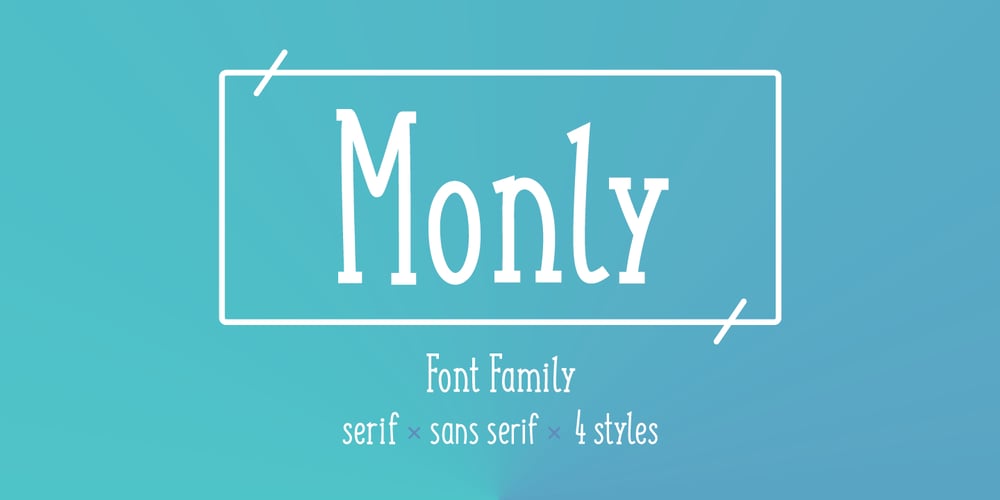
Monly
Monly font
Monly Font Family was designed by Gatis Vilaks and published by WildOnes. Monly contains 4 styles and family package options. The main idea behind creating Monly typeface was to combine playfulness with a strong letter construction backbone, so all the letters would stand tall and firm, but not to lose the playfulness. Like people, who grow up but try to save their inner child. By doing so and combining all this, the typeface achieves a great readability and appealing look. Monly font suits best for logos, headlines and small text blocks, but can also be used for big text blocks if the style suits the purpose.